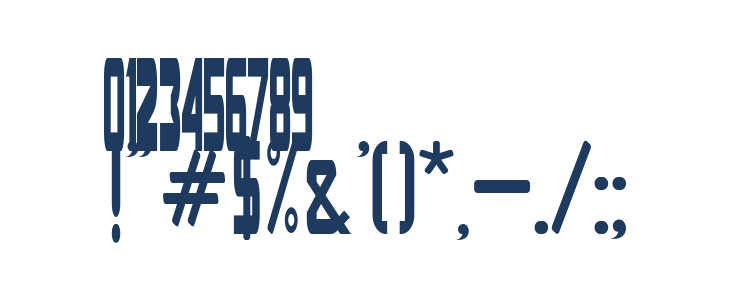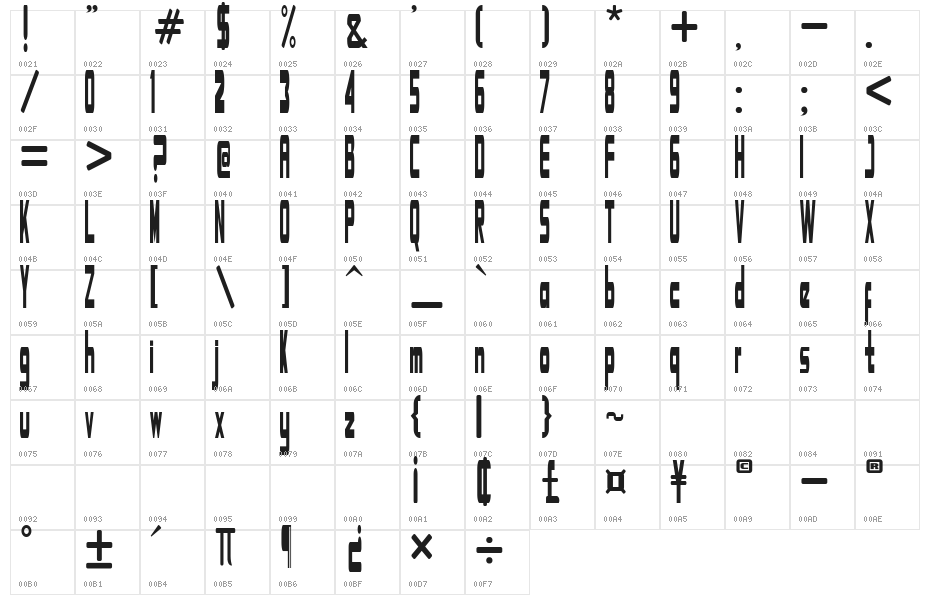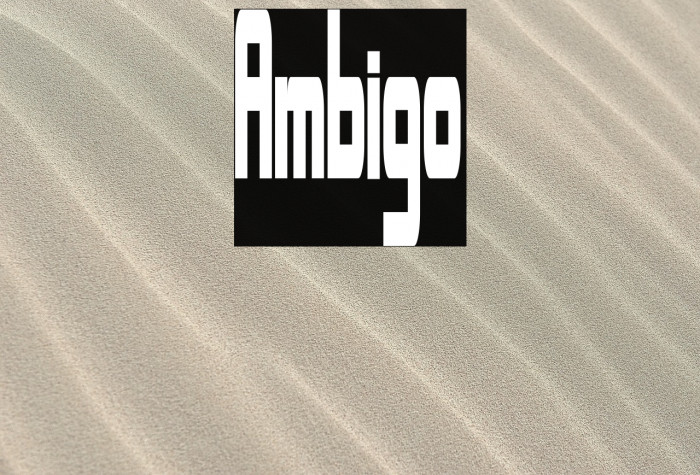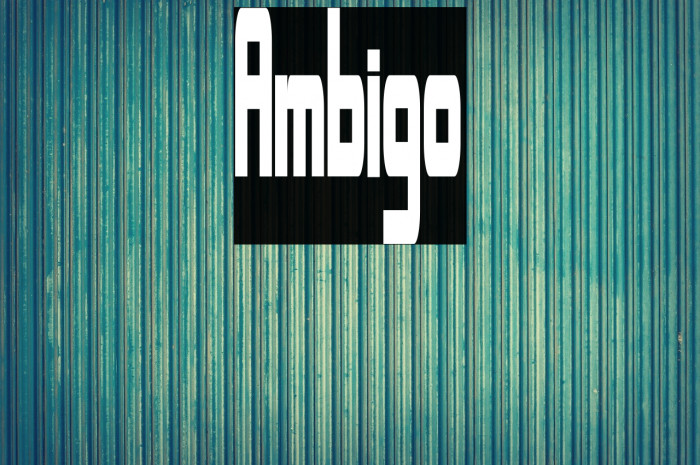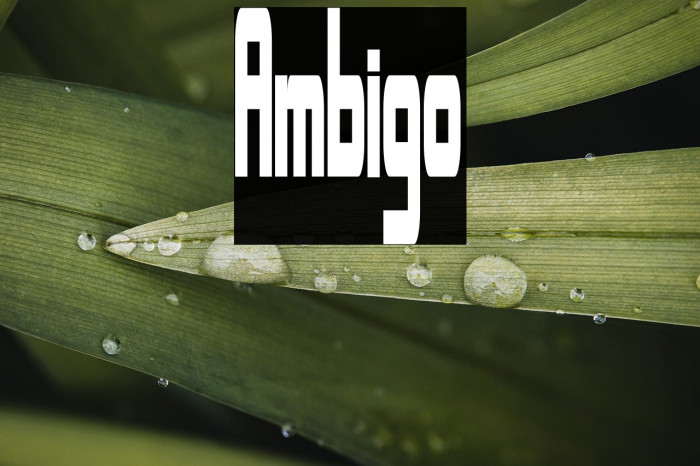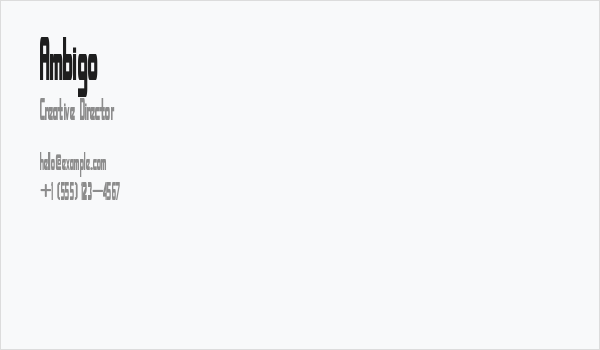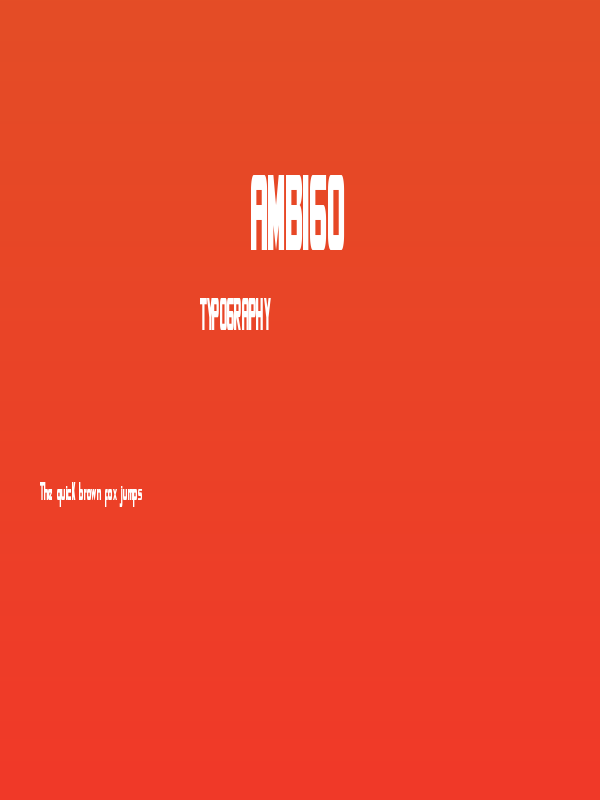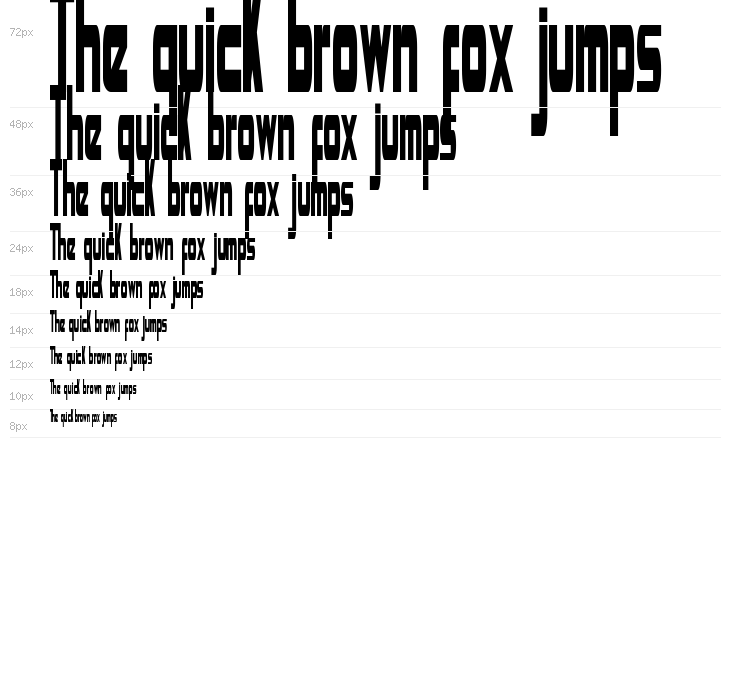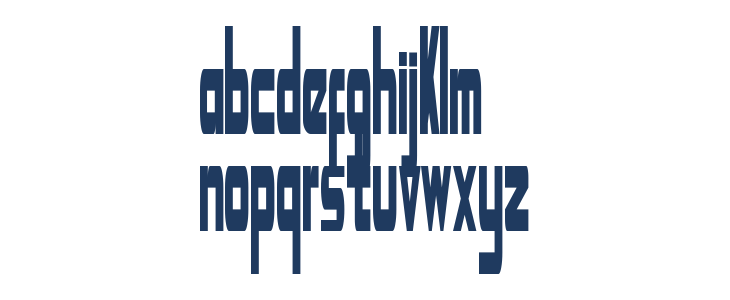
Ambigo Font
Ambigo Description
This font is a bold, condensed typeface with a strong presence. The characters are tightly spaced, creating a compact and impactful look. The uppercase letters are tall and narrow, while the lowercase letters maintain a similar condensed style, ensuring consistency across the typeface. The numerals are equally bold and condensed, matching the overall aesthetic. Special characters are designed with the same boldness, making them stand out. This font is suitable for projects that require a strong visual impact, such as headlines or logos.
| Proposed Projects | Ideal for headlines, posters, branding, and logo design where a bold statement is needed. |